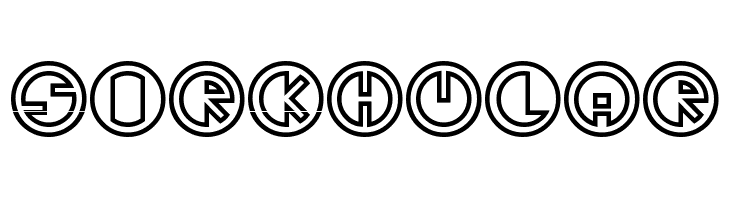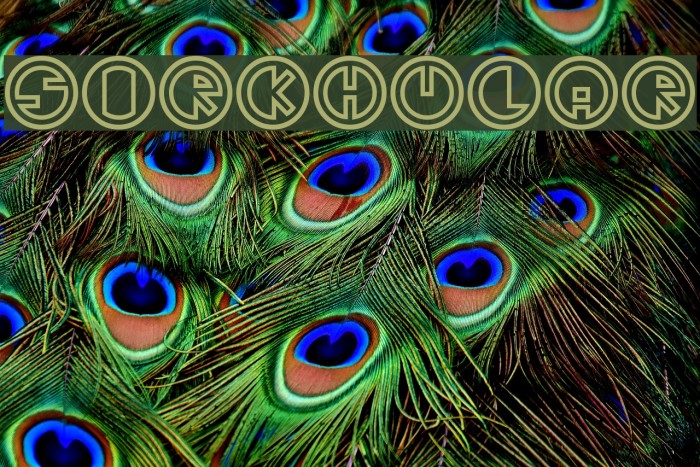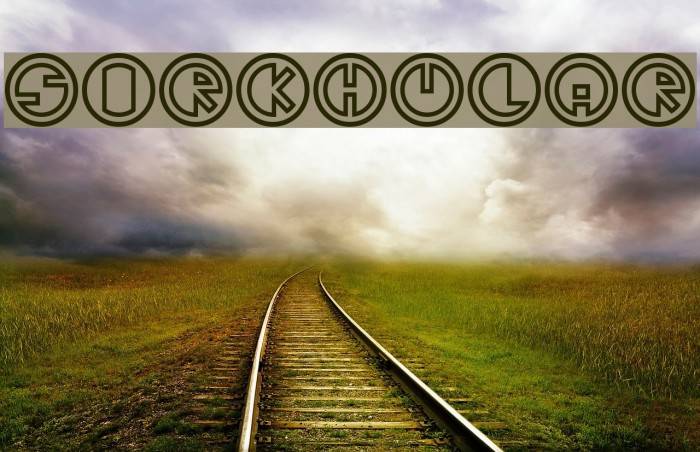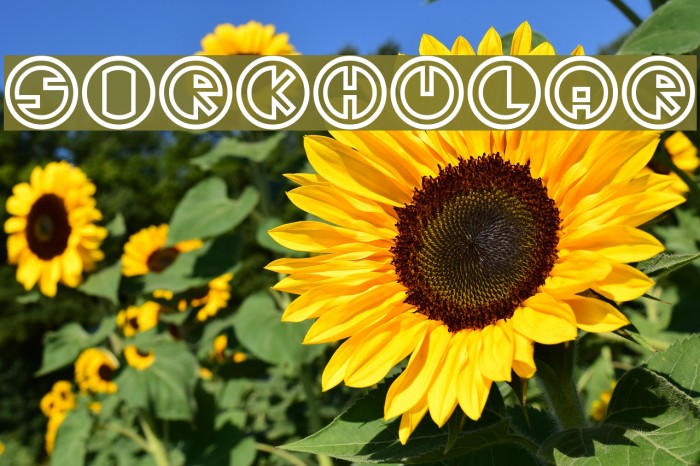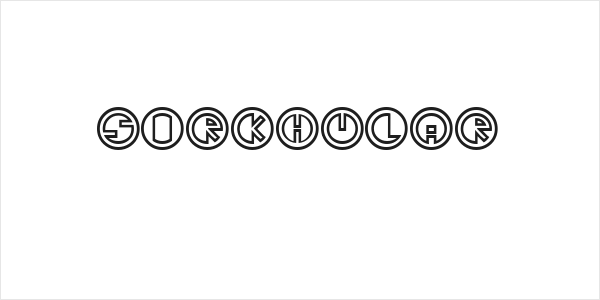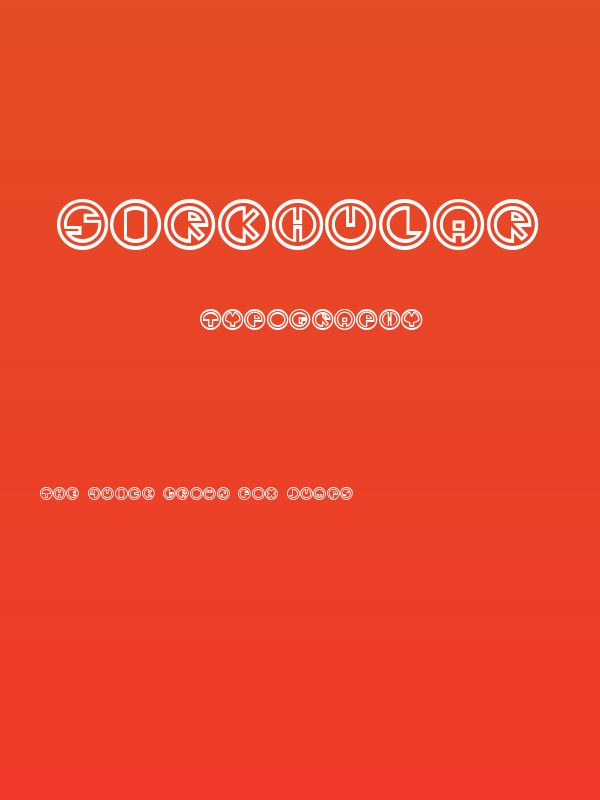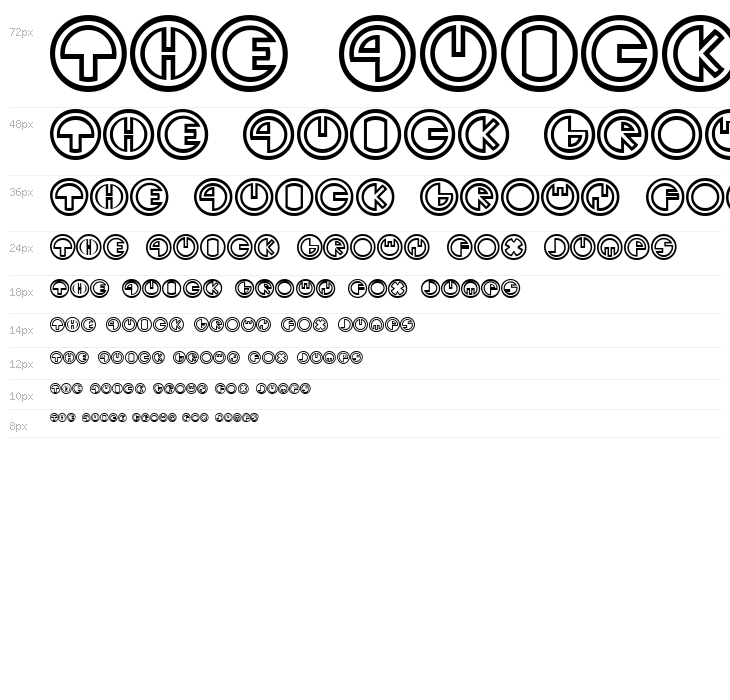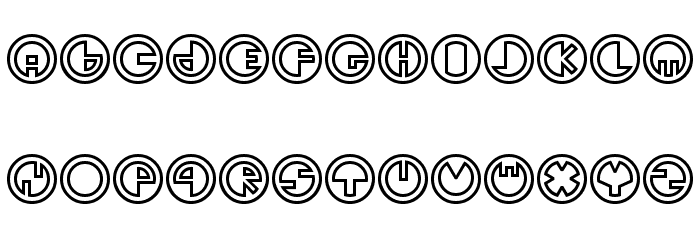
Sirkhular Font
Sirkhular Description
This font features a unique and modern design where each character is enclosed within a circular border, creating a striking visual effect. The letters are geometric and bold, with a futuristic aesthetic that stands out. The uppercase and lowercase letters maintain a consistent style, emphasizing symmetry and balance. The absence of traditional serifs and the use of clean lines contribute to its contemporary look. The font lacks numerals and special characters, focusing solely on the alphabet, which enhances its specialized use in design projects.
| Use Case | Logos, Headlines |
| Proposed Projects | Ideal for logo design, branding, and futuristic-themed projects where a bold statement is needed. |